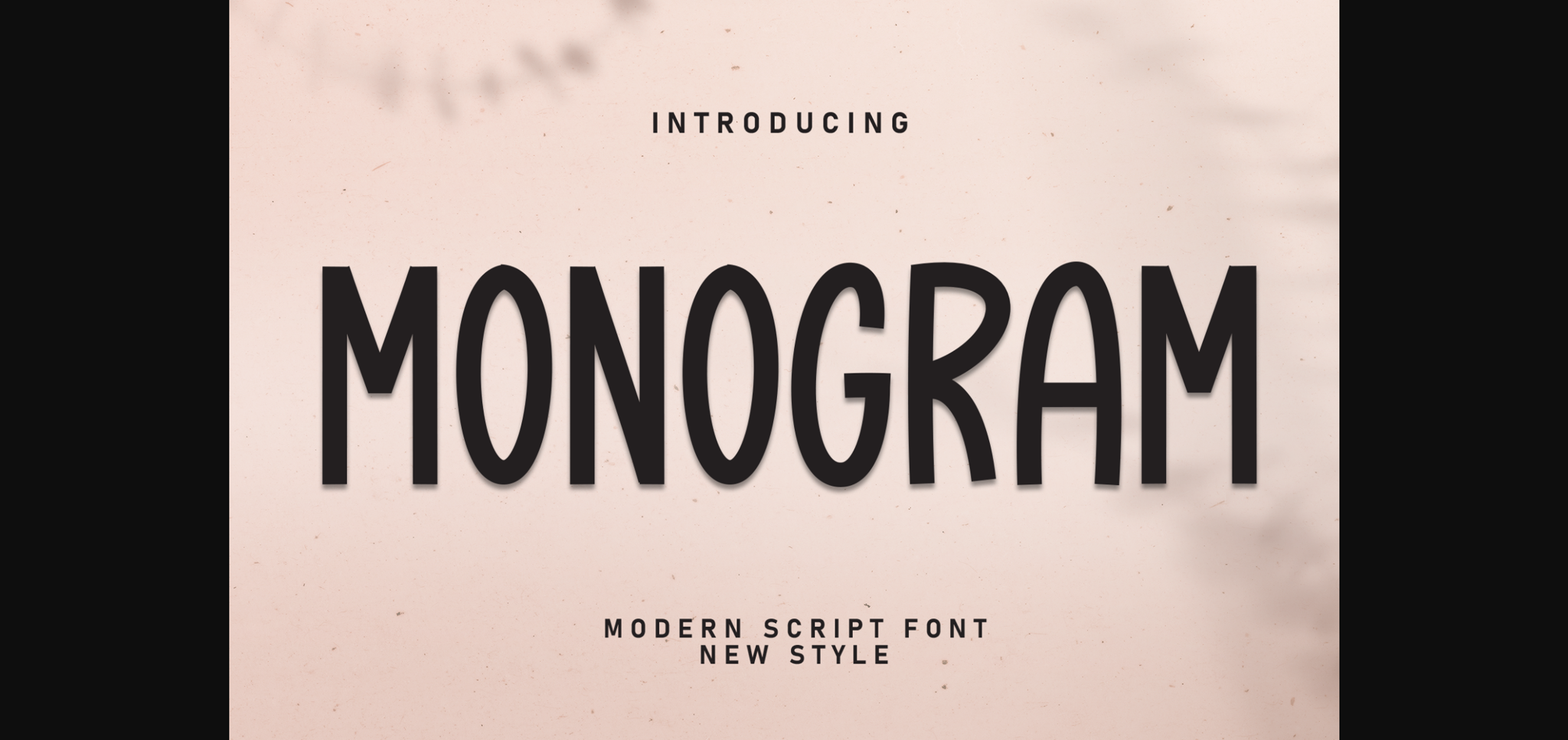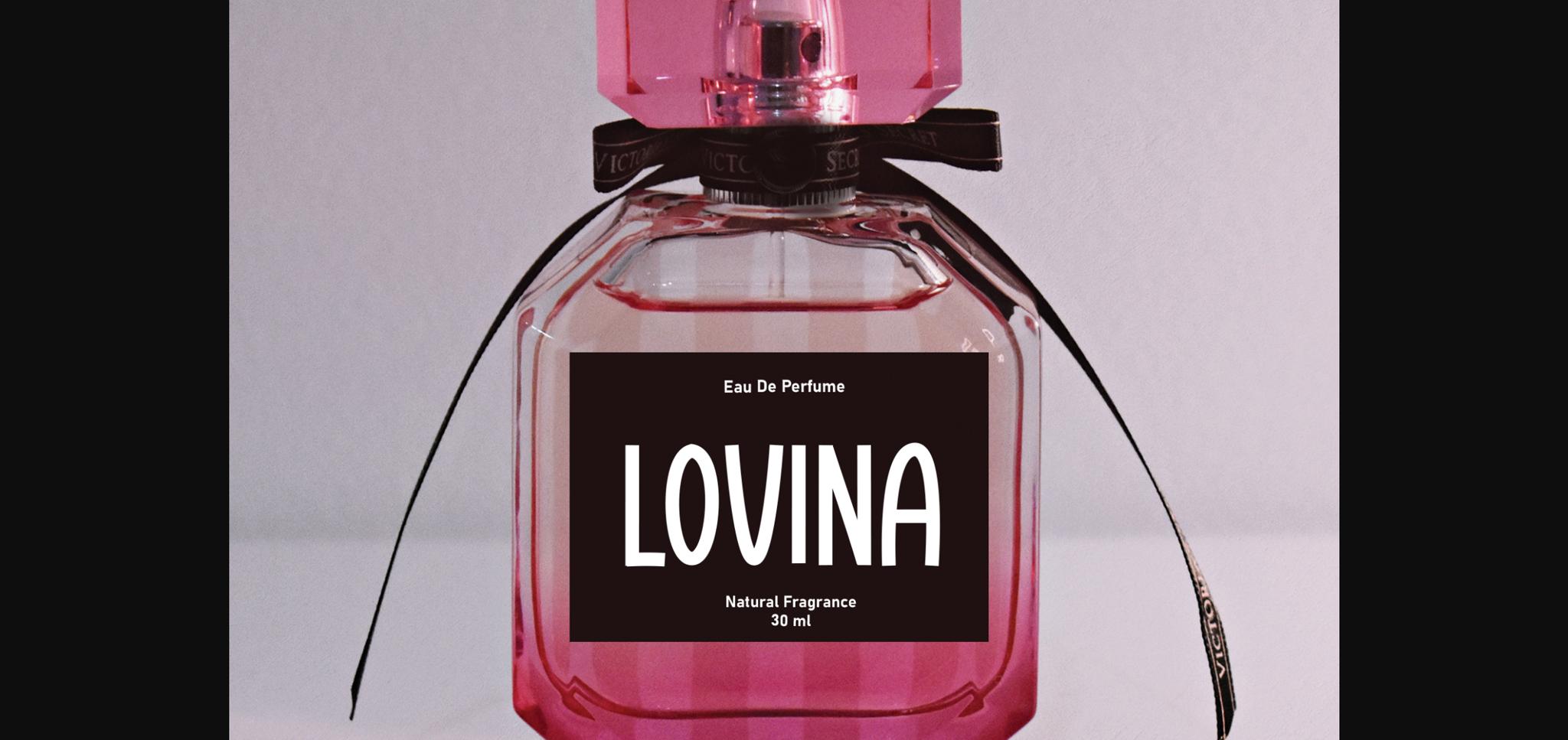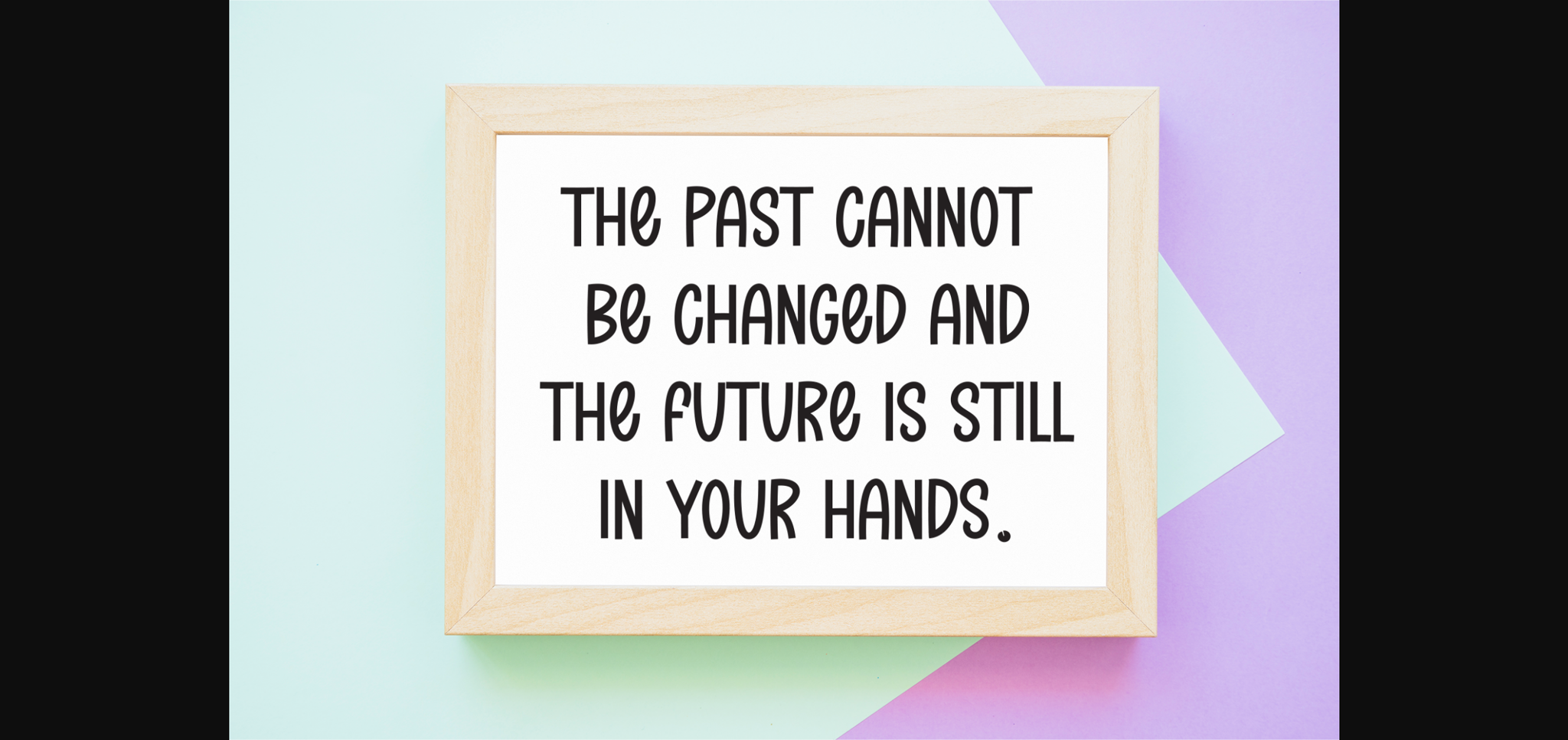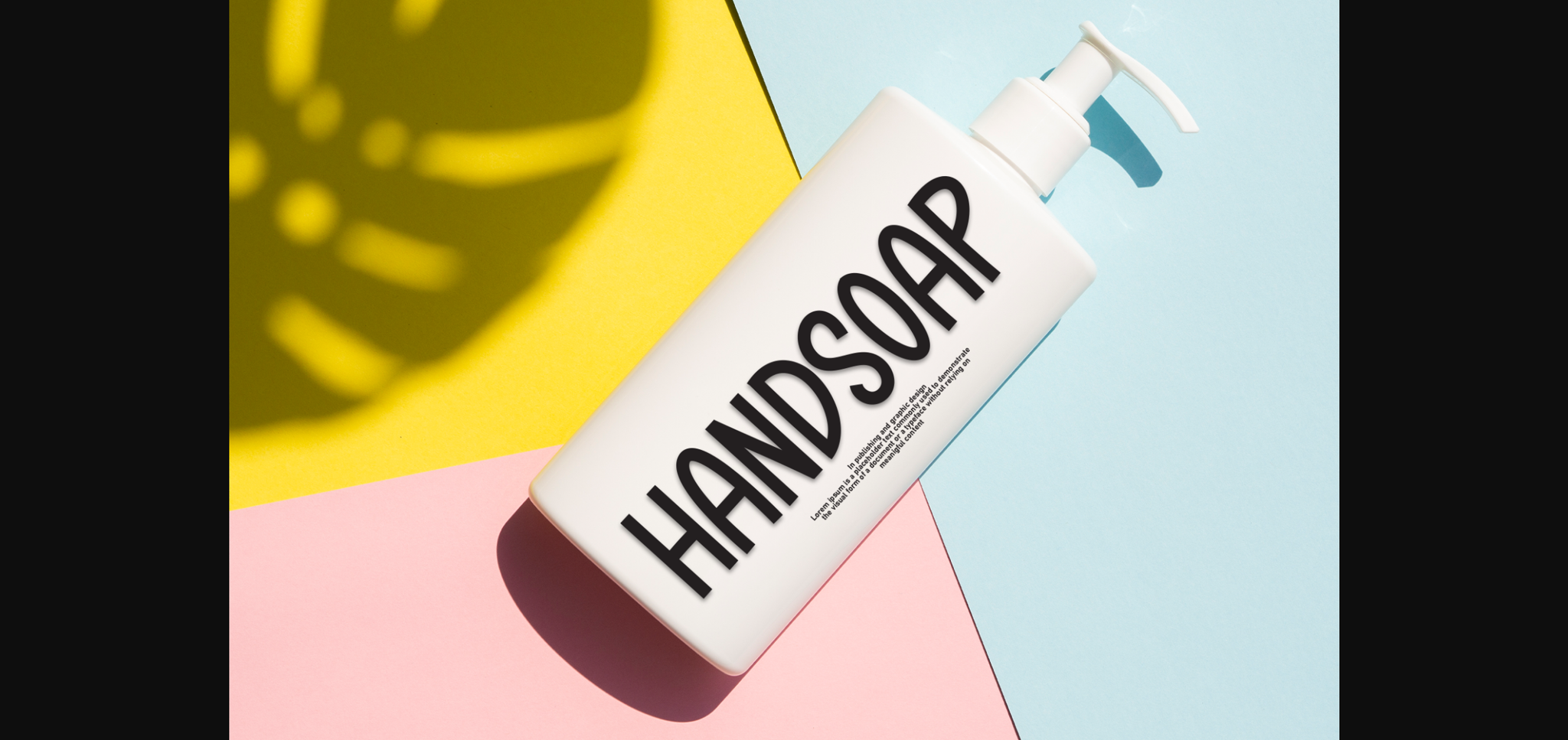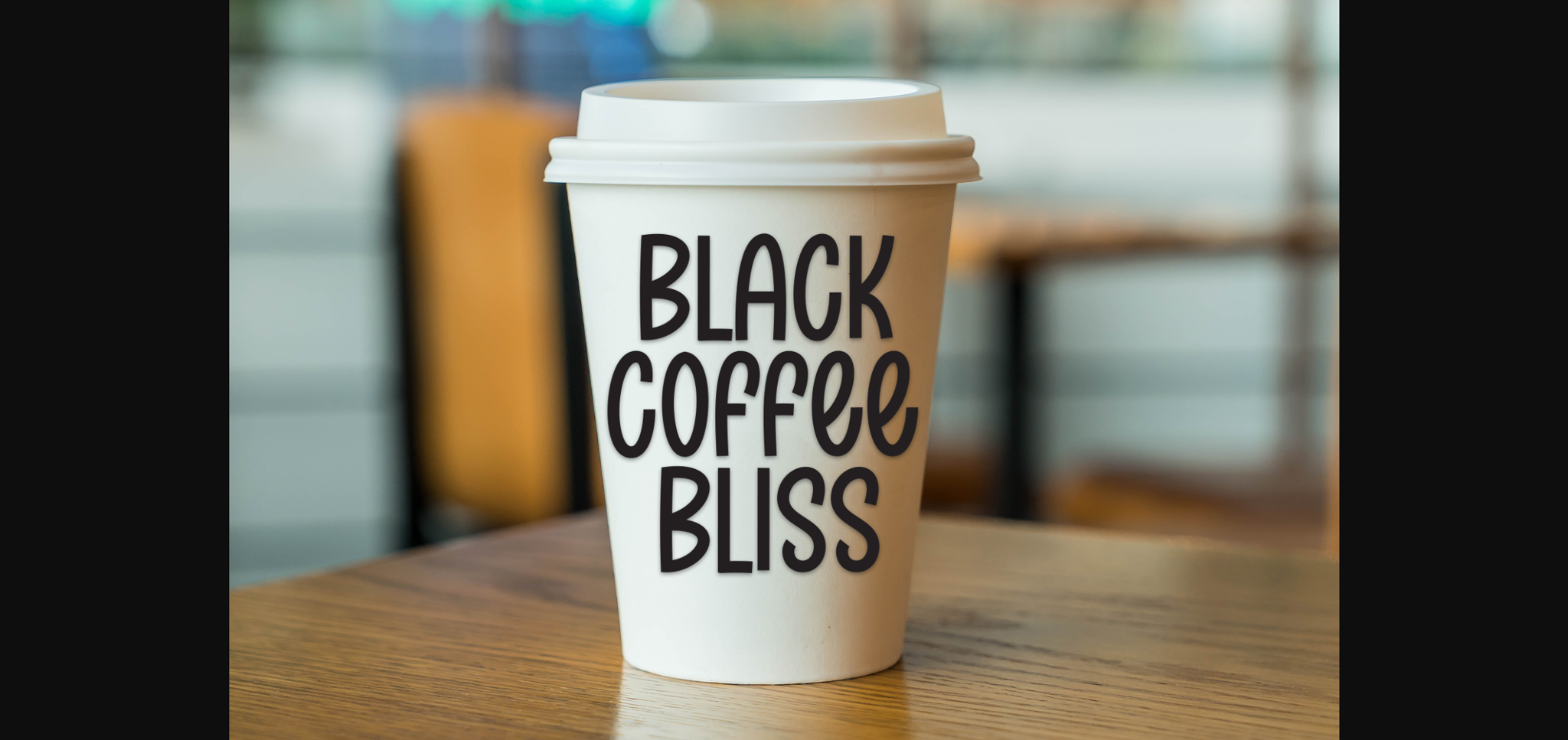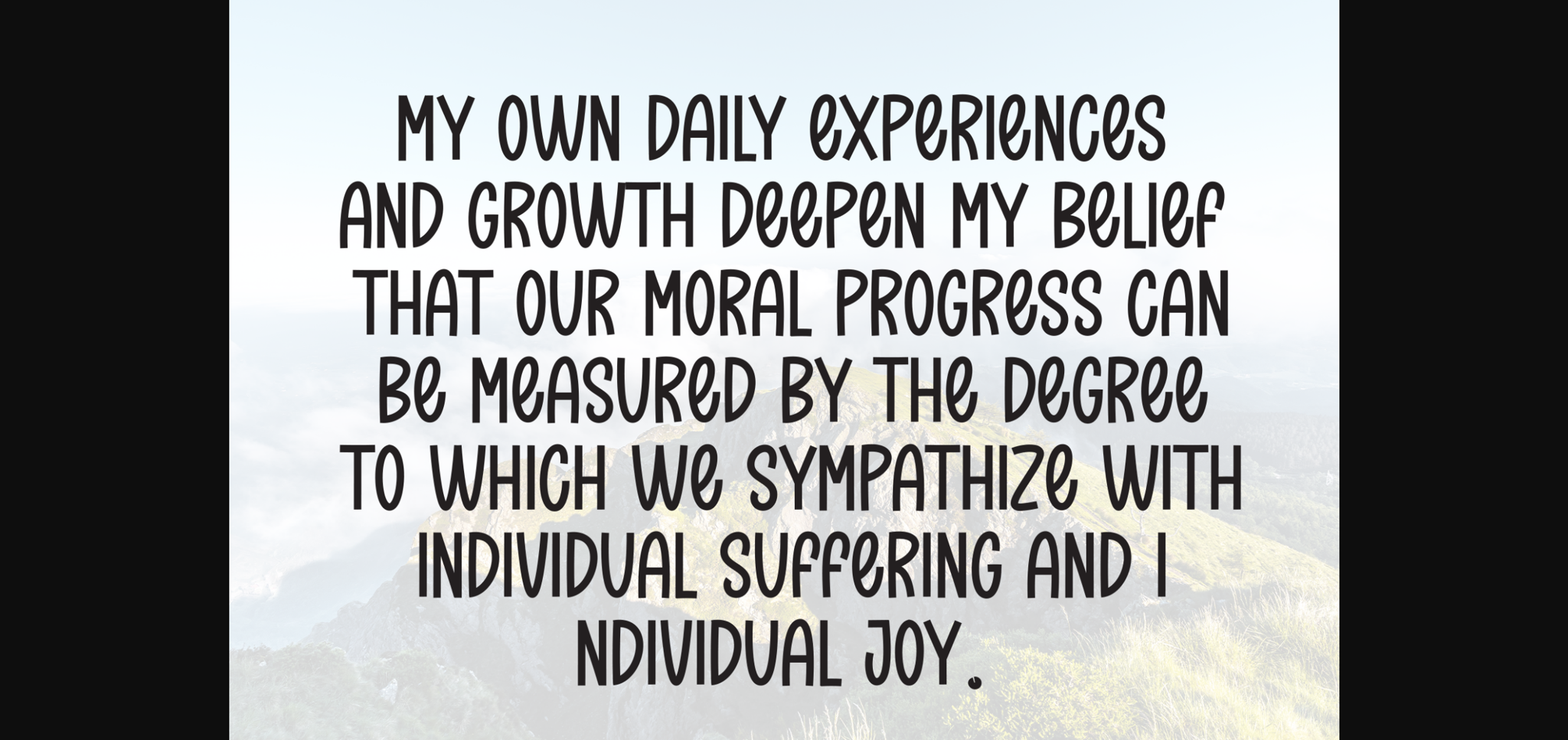
Monogram Font
About Monogram Font
Monogram is a cool sans-serif font that marries grace with expressiveness. Each meticulously crafted character exudes an artful elegance, capturing the essence of traditional calligraphy. Ideal for projects seeking a timeless and sophisticated touch, Monogram adds a refined, handwritten flourish to your creative endeavors.